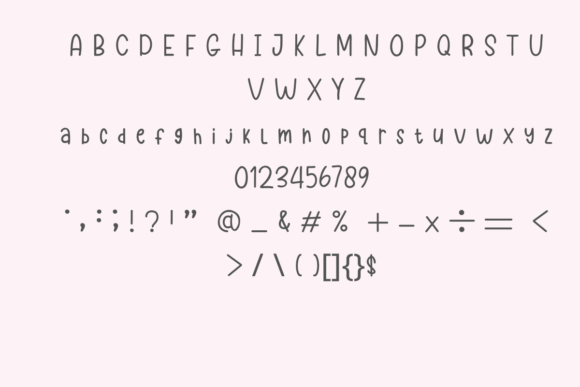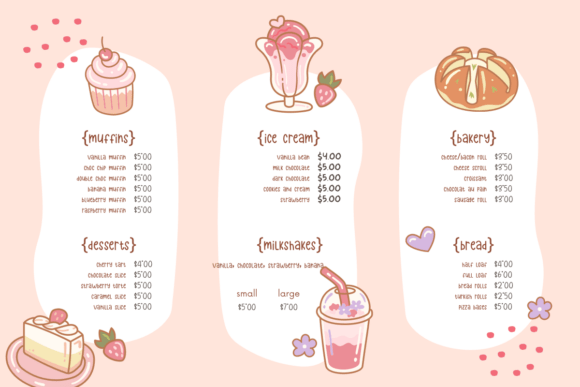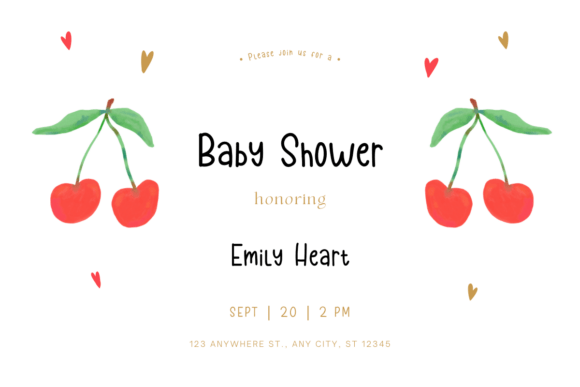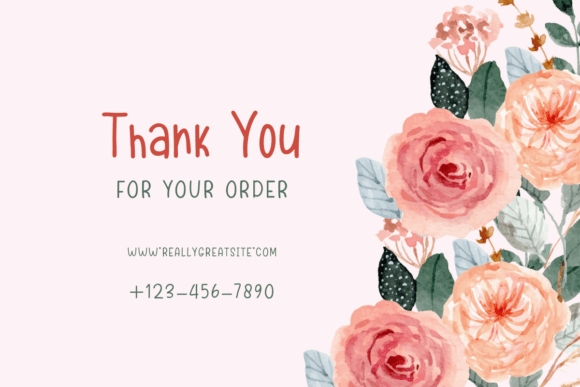
Introducing Cherry Font: A Whimsical Handwritten Style for Creative Expression
Are you on the hunt for a font that adds a personal touch to your creative projects? Look no further than Cherry Font, a beautiful handwritten font that’s perfect for a variety of applications. In this article, we’ll dive into the world of Cherry Font, exploring its uses, benefits, and design possibilities.
What is Cherry Font?
Cherry Font is a delightful handwritten font designed to bring a touch of warmth and personality to your writing and designs. Its unique, cursive style is reminiscent of handwritten notes and letters, making it an excellent choice for projects that require a personal and intimate feel.
Uses of Cherry Font
So, what can you use Cherry Font for? The possibilities are endless! Here are some ideas to get you started:
- Note-taking and journaling: Add a touch of elegance to your notes and diary entries with Cherry Font.
- Greeting cards and invitations: Create beautiful, one-of-a-kind cards and invites for special occasions.
- Banners and signs: Use Cherry Font to add a personal touch to your banners, signs, and posters.
- Content creation: Add a dash of personality to your blog posts, articles, and social media content.
- Mugs, cards, and gifts: Create unique and thoughtful gifts with Cherry Font.
- Stationery and paper goods: Design beautiful stationery, stickers, and paper crafts with Cherry Font.
- Social media posts: Stand out on social media with eye-catching graphics and posts featuring Cherry Font.
- T-shirts and apparel: Create custom apparel with Cherry Font for a personalized look.
Benefits of Using Cherry Font
So, why choose Cherry Font for your creative projects? Here are just a few benefits:
- Unique and eye-catching: Cherry Font adds a touch of personality to your designs, making them stand out from the crowd.
- Easy to read: Despite its handwritten nature, Cherry Font is surprisingly easy to read, making it perfect for longer texts.
- Versatile: Cherry Font can be used for a wide range of projects, from formal to informal.
- Customizable: Experiment with different colors, sizes, and styles to make Cherry Font your own.
Design Tips and Inspiration
Ready to get creative with Cherry Font? Here are some design tips and inspiration to get you started:
- Pair with bold fonts: Combine Cherry Font with bold, sans-serif fonts for a striking contrast.
- Experiment with colors: Try pairing Cherry Font with bright, bold colors for a playful look.
- Add illustrations: Combine Cherry Font with whimsical illustrations for a charming design.
- Play with textures: Add a tactile feel to your designs with texture overlays and Cherry Font.
| Font Name | Cherry Font |
| Author | Ketsarin |